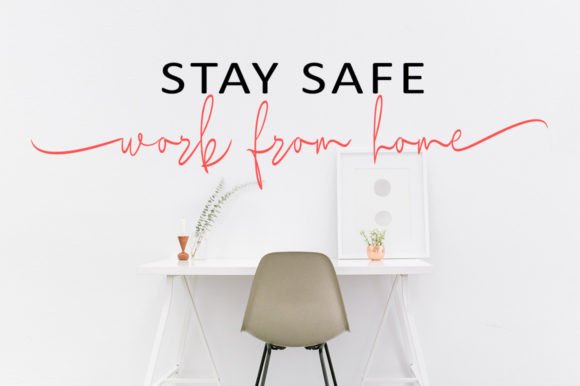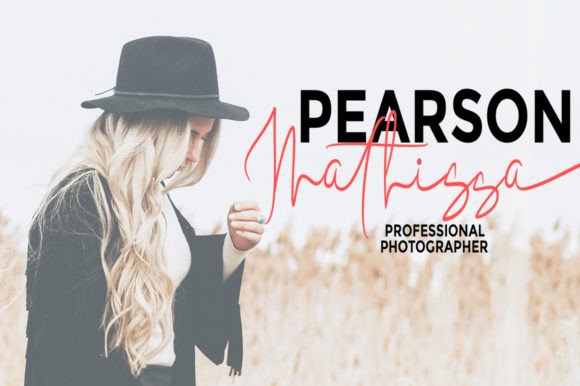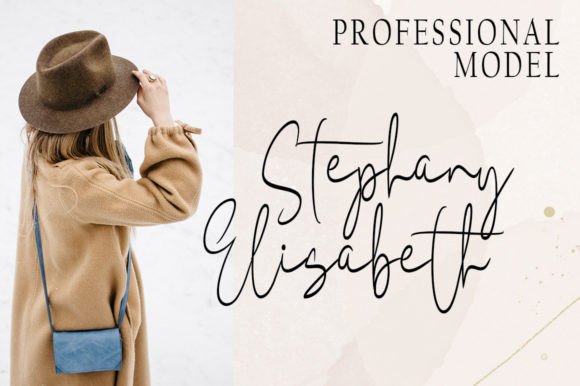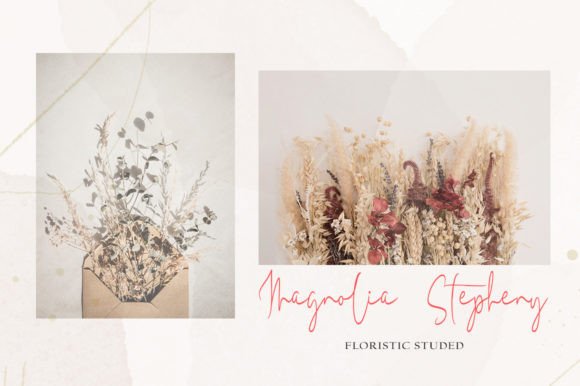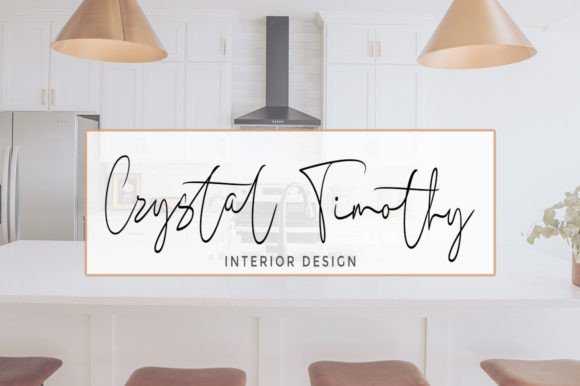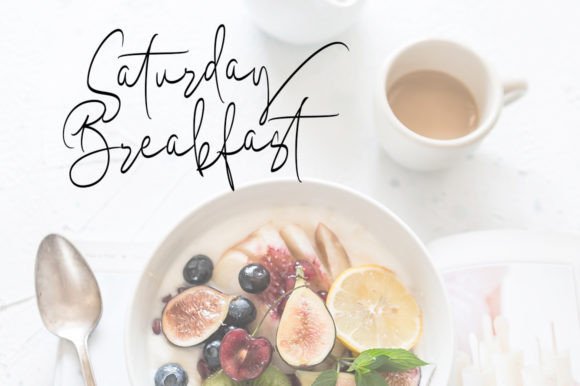
Introduction to Sigtha Signature Font
As a designer, there’s nothing quite like the thrill of bringing a creative project to life. You’ve spent hours brainstorming, sketching, and perfecting every detail – and then it’s time to add the final touches. But what if your design is missing that special something, that extra oomph to make it truly stand out? That’s where a beautiful font like the Sigtha Signature Font comes in.
This lovely script font is more than just a pretty face – it’s a valuable design resource that can elevate your work and make it truly shine. With its delicate lines and elegant curves, the Sigtha Signature Font is the perfect choice for anyone looking to add a touch of sophistication and class to their designs.
Whether you’re working on a free download, a high-quality brochure, or a creative project with a transparent background, the Sigtha Signature Font is sure to impress. And the best part? It’s PUA encoded, making it easy to access all the glyphs and swashes you need to get the perfect look.
Key Features of Sigtha Signature Font
- High-quality design resource ideal for creative projects, including logos, business cards, and social media graphics.
- Features a transparent background, making it easy to integrate into any design.
- Includes a range of stylish and elegant glyphs, perfect for adding a touch of sophistication to your design.
- Designed to be highly legible, with clear and crisp lines that ensure your message is conveyed effectively.
Honest Review: Sigtha Signature Font
I recently had the opportunity to work with the Sigtha Signature Font, and I must say it’s a great addition to any design resource. The font is a high-quality, elegant script that’s perfect for creative projects requiring a touch of sophistication.
- ✨ The transparent background allows for seamless integration into any design.
- ✨ The font is highly customizable, making it easy to tailor to your specific design needs.
- ⚠️ Some users may find the font a bit too ornate, which could be a drawback for simpler designs.
The Sigtha Signature Font is a high-quality, free download design resource ideal for creative projects. With its unique style and transparent background, it can elevate any design.
Tips for Getting the Most Out of Sigtha Signature Font
Experiment with different font sizes, colors, and styles to create a unique look.
Use the transparent background feature to create visually appealing designs.
The Sigtha Signature Font is ideal for:
Business cards and letterheads
Wedding invitations and event materials
Brand logos and identity materials